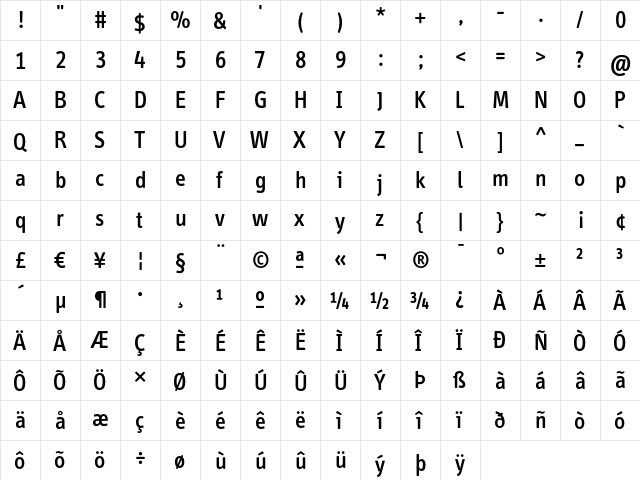
InfoDispMediumTf Roman
Design Context for InfoDispMediumTf Typeface
InfoDispMediumTf is a composed and adaptable typeface that performs quietly and consistently across a wide range of design contexts.